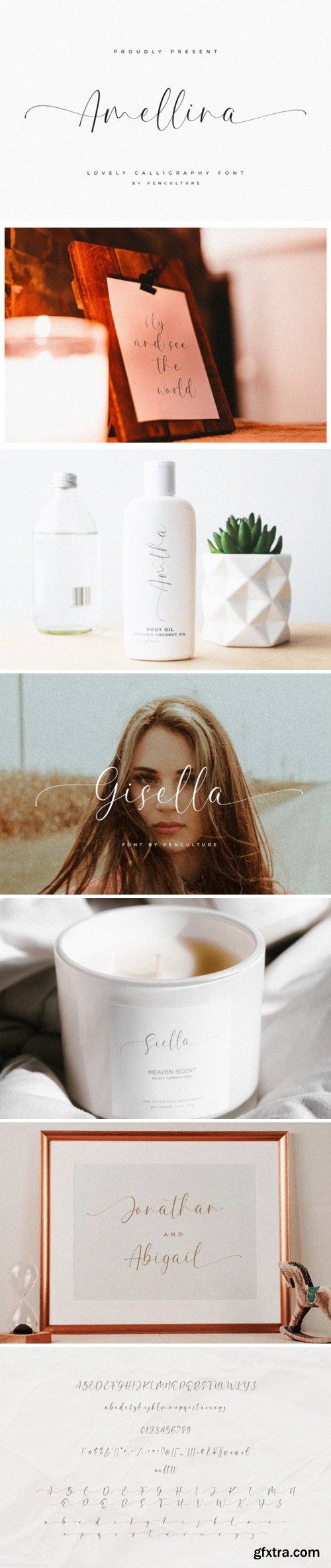
艾玛莉娜字体
Amellina is a lovely script font that comes with beautiful beginning and ending swashes. It can be used for a variety of projects such as invitation, social media, cards, photography watermarks and so much more.